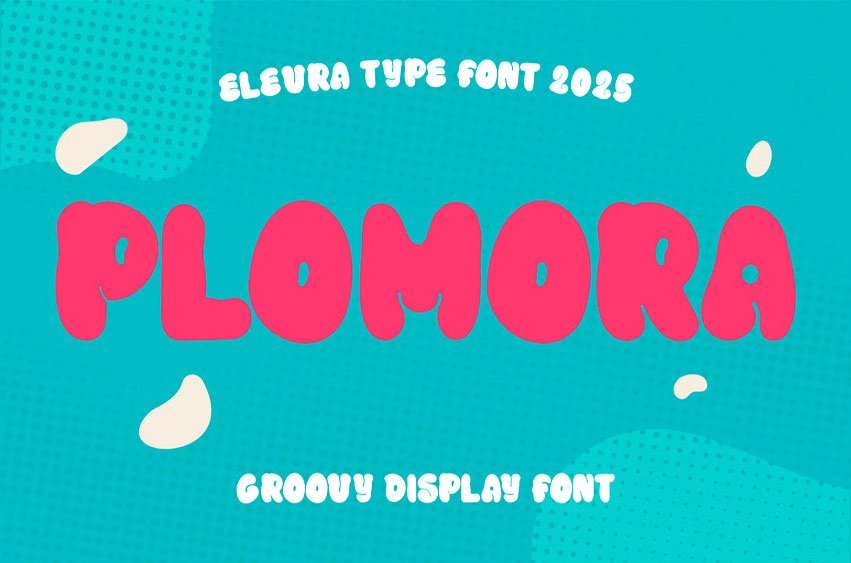
Plomora Font is a bold and groovy display font designed to bring fun, joy, and creativity into your projects. With its bubbly shapes and retro-inspired curves, this font is perfect for playful branding, eye-catching headlines, and colorful design concepts.
The font comes with uppercase & lowercase letters, alternates, ligatures, and multilingual support, giving you full flexibility to create unique and engaging typography. Its smooth and chunky style makes it a great choice for posters, packaging, children’s books, logos, social media graphics, and more.
Whether you want to add a cheerful retro vibe or a bold playful touch, Plomora will instantly make your design stand out.